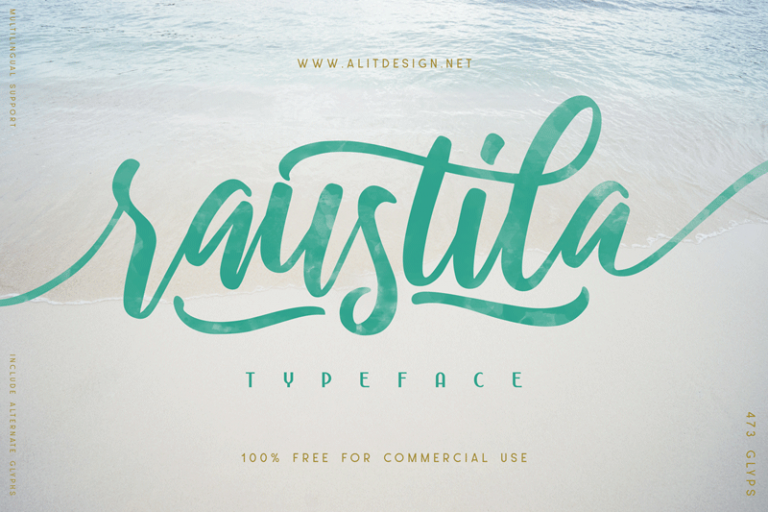
Raustila Typeface
Introducing Raustila Script Font! It is designed and shared by alit design. Perfect for adding a elegant and unique touch to your lettering projects and branding. Every single letters have been carefully crafted to make your text looks beautiful. With lettering script style this font will perfect for many different project ex: quotes, blog header, poster, wedding, branding, logo, fashion, apparel, letter, invitation, stationery, etc.